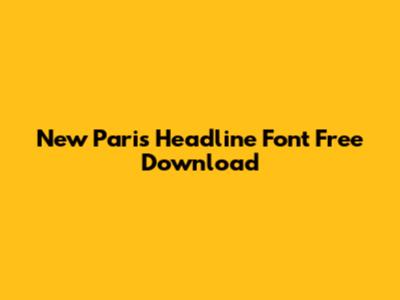
Hey guys! Are you on the hunt for a stylish and modern font to elevate your design projects? Look no further! The New Paris Headline font is here to add that touch of elegance and sophistication you’ve been craving. In this article, we'll dive deep into what makes this font so special, where you can download it for free, and how to make the most out of it in your creative endeavors. So, buckle up and let’s get started!
What Makes New Paris Headline Font Special?
The New Paris Headline font isn’t just another typeface; it's a statement. This font boasts a unique blend of classic and contemporary design elements, making it incredibly versatile for a wide range of applications. Its clean lines and balanced proportions ensure readability, while its subtle quirks add personality and charm. Whether you’re working on a website, a poster, or a branding project, this font can seamlessly adapt to your needs.
One of the key attributes of the New Paris Headline font is its adaptability. It works wonders for headlines, subheadings, and even body text when used strategically. The font’s legibility at various sizes makes it a reliable choice for both print and digital media. Plus, its distinct character helps your message stand out, ensuring that your audience remembers your design.
Designers often praise the New Paris Headline font for its ability to evoke a sense of modern luxury. This makes it an excellent choice for brands aiming to project an image of sophistication and high quality. From fashion labels to upscale restaurants, this font can enhance brand perception and create a lasting impression. Its elegance is not overbearing; instead, it provides a subtle, refined touch that elevates any design.
Moreover, the New Paris Headline font supports a variety of languages and includes a wide range of characters and glyphs. This comprehensive support ensures that you can use the font in diverse projects, reaching global audiences without worrying about compatibility issues. The inclusion of special characters also allows for creative experimentation, enabling you to add unique stylistic elements to your designs.
In summary, the New Paris Headline font stands out due to its versatility, legibility, and ability to convey modern luxury. It’s a fantastic addition to any designer’s toolkit, offering a blend of classic appeal and contemporary relevance.
How to Use New Paris Headline Font in Your Projects
First and foremost, consider the overall tone and style of your project. The New Paris Headline font exudes a sense of modernity and elegance, making it ideal for projects that aim to convey sophistication and class. It works exceptionally well for branding materials, such as logos, business cards, and website headers. Its clean lines and balanced proportions ensure that your brand message is communicated clearly and effectively.